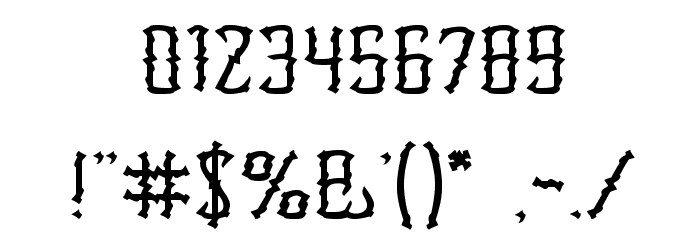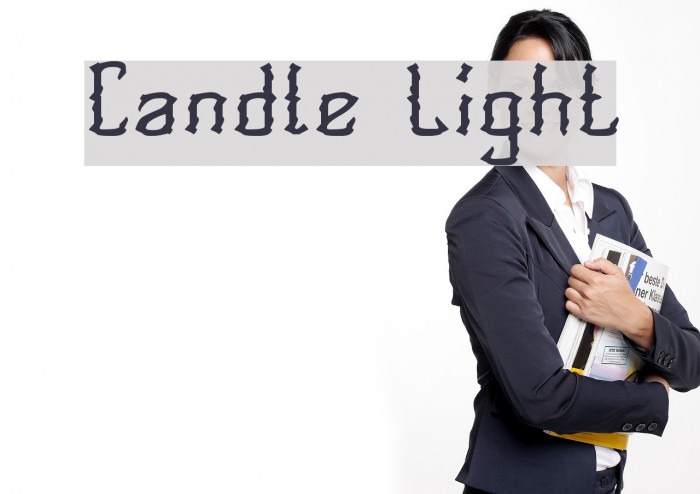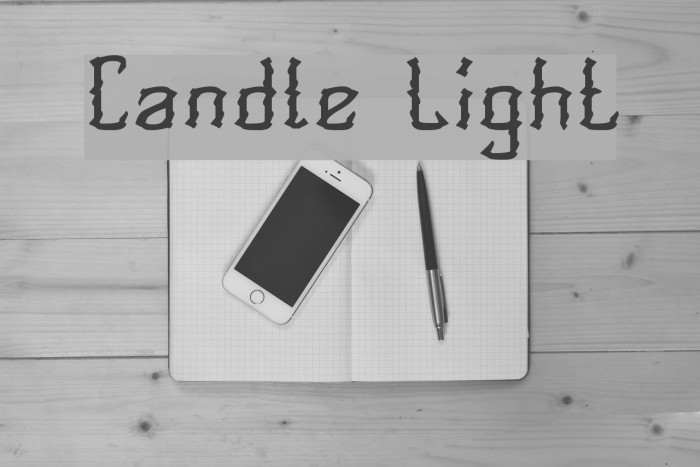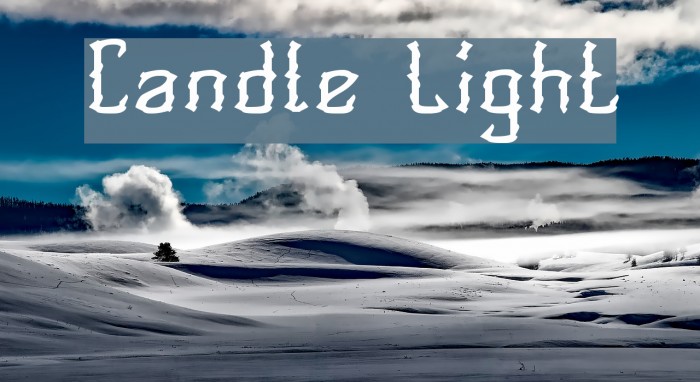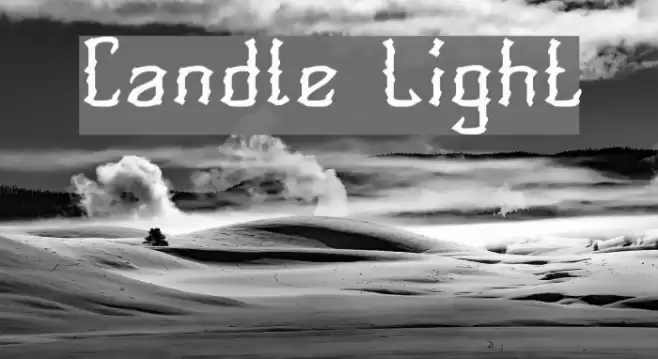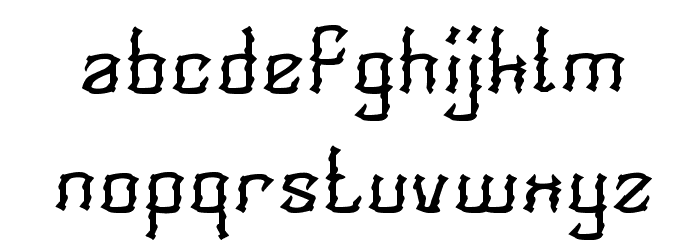
Candle Light Font
Candle Light Description
This font features a unique, decorative style with a gothic influence, characterized by its sharp, jagged edges and intricate detailing. The uppercase letters are bold and striking, while the lowercase letters maintain a consistent style with slightly softer curves. Numbers and special characters follow the same ornate design, making them stand out. The overall appearance is reminiscent of candle drippings or melted wax, giving it a mysterious and dramatic flair. This font is perfect for creating eye-catching headlines or themed designs that require a touch of elegance and intrigue.
| Overall Style | Gothic, Decorative |
| Use Case | Headlines, Logos, Themed Designs |
| Proposed Projects | Ideal for Halloween-themed designs, gothic posters, book covers, or any project needing a dramatic and mysterious touch. |